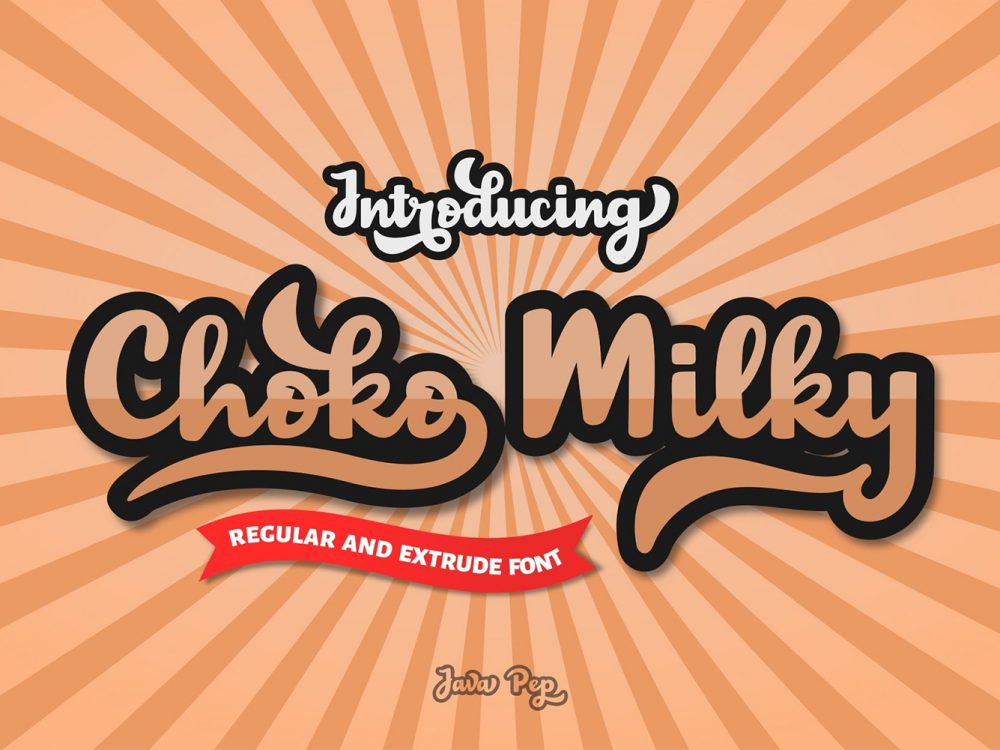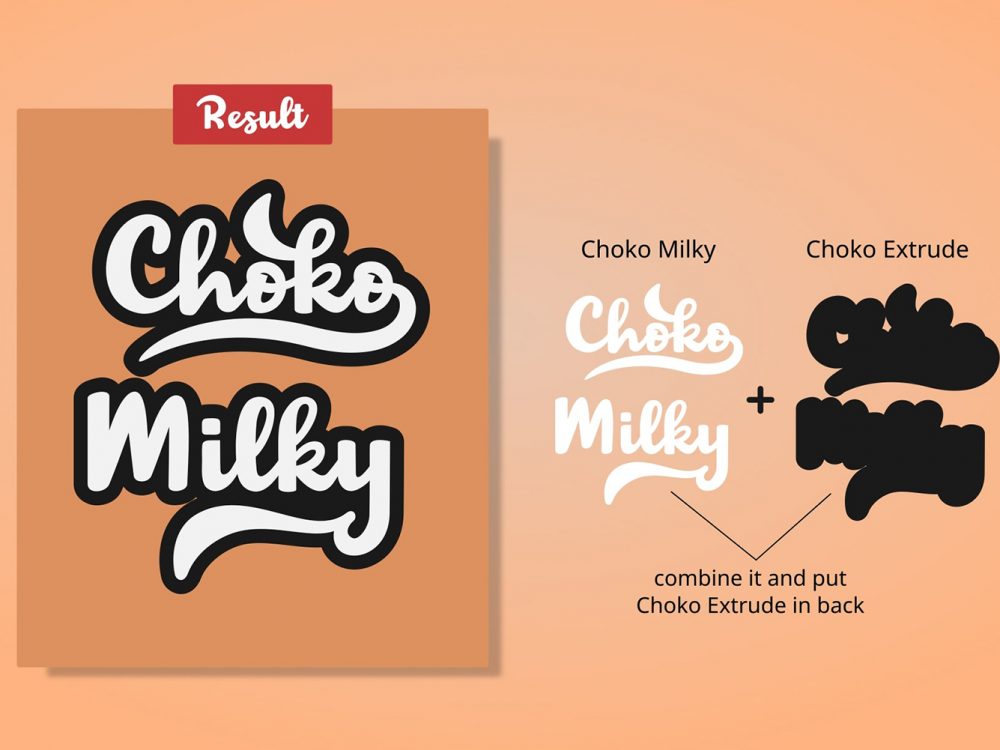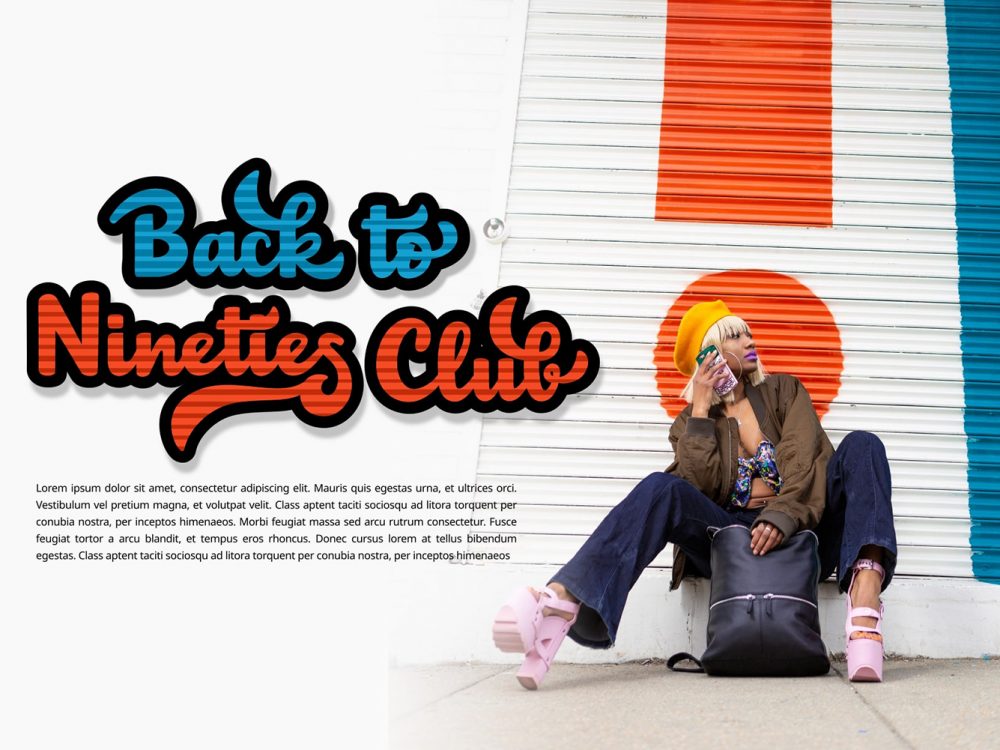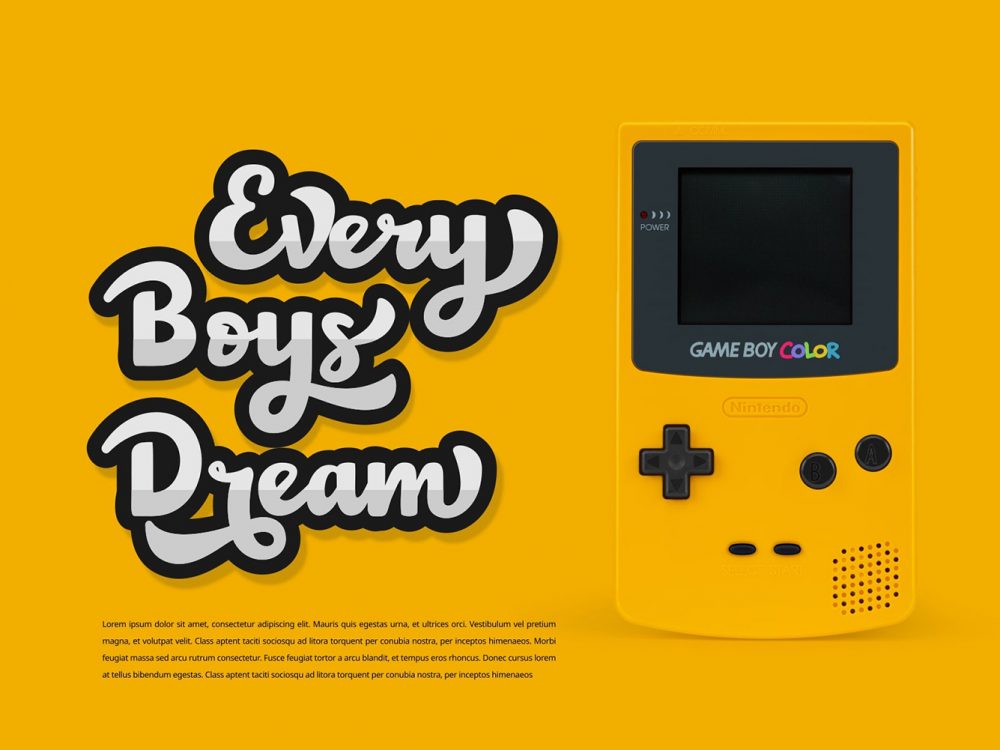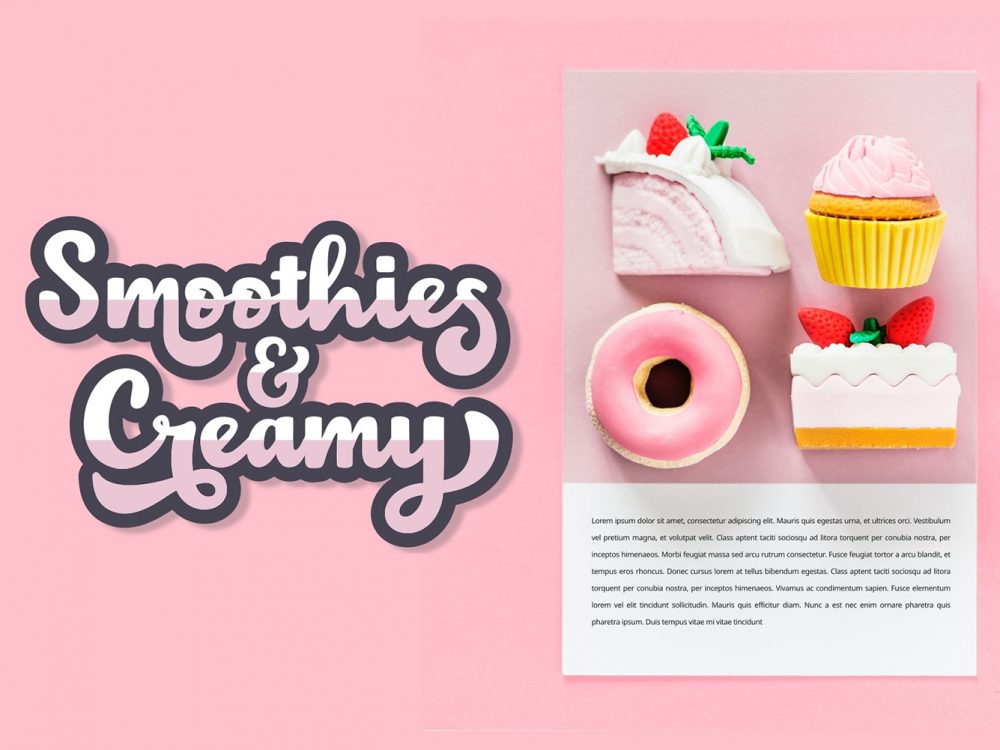
Choko Milky Free Font
Add a playful, hand-drawn touch to your design projects with Choko Milky Free Font. This charming font features a handwritten style that is casual and fun, with a mix of thin and thick lines that give it a unique and organic feel. The font includes uppercase and lowercase letters, numbers, and a selection of punctuation marks and special characters, making it versatile and easy to use. Whether you’re working on a children’s book, a social media post, or any other project that calls for a touch of whimsy, Choko Milky Free Font is sure to add a touch of charm and personality. So why wait? Download it today and start adding some handwritten flair to your work! If you like it don’t forget to check out the full version.